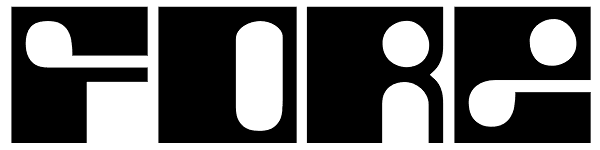
Fore
Fore is a fresh spin on fat display letters, with a tinge of Japanese techno design. Its unicase construct gives it a very flexible nature, which makes it very appealing to typographers who care about having alternative choices within the same...
Fore
Fore Shadow